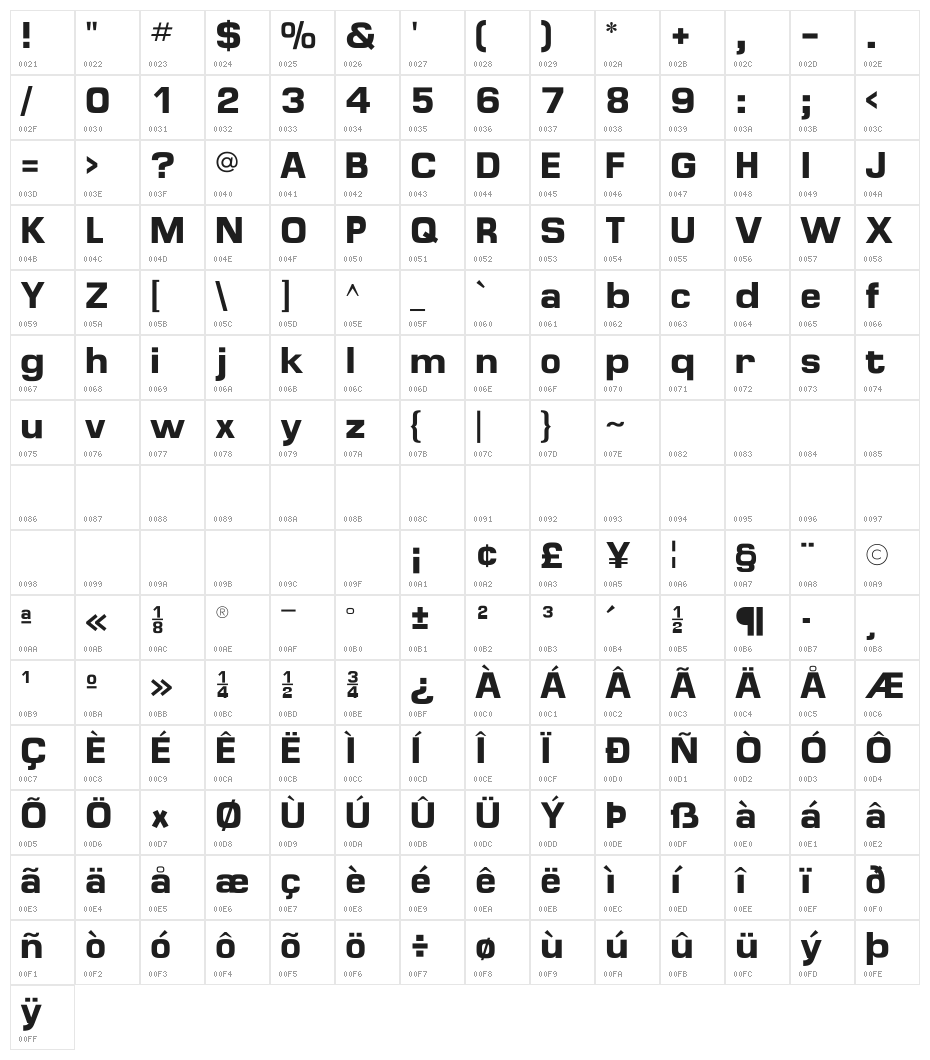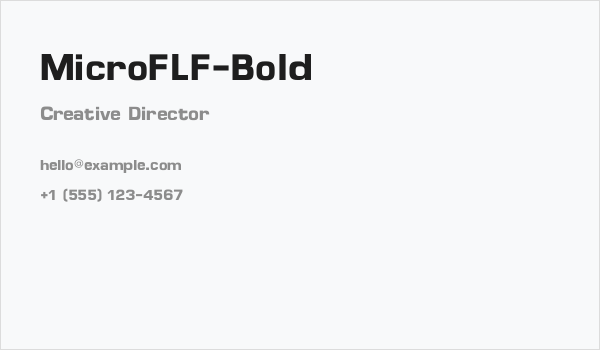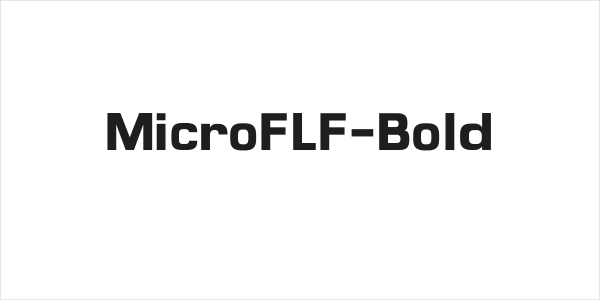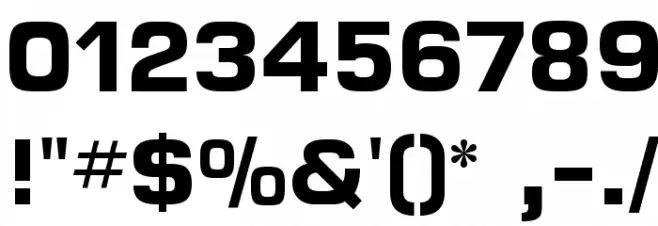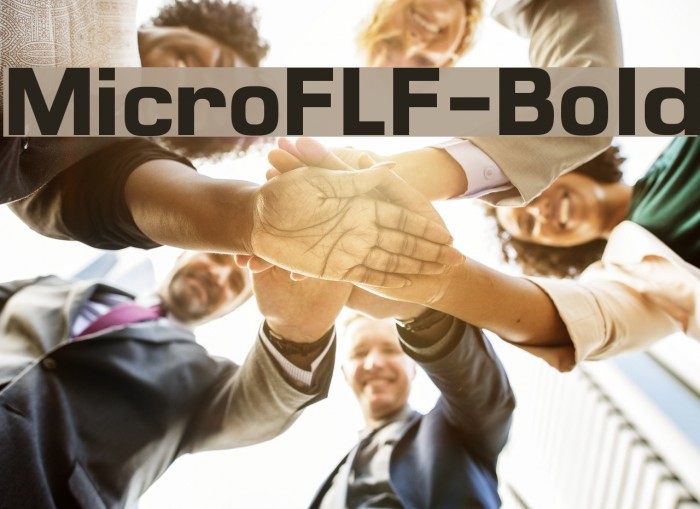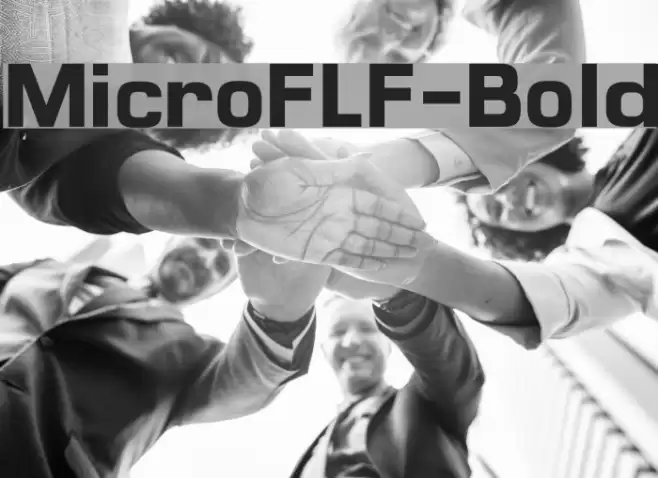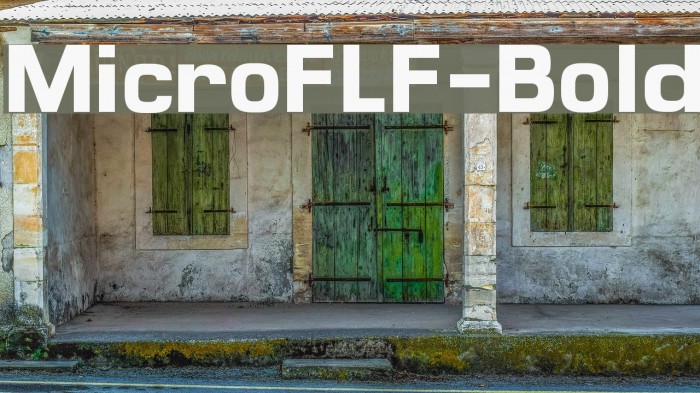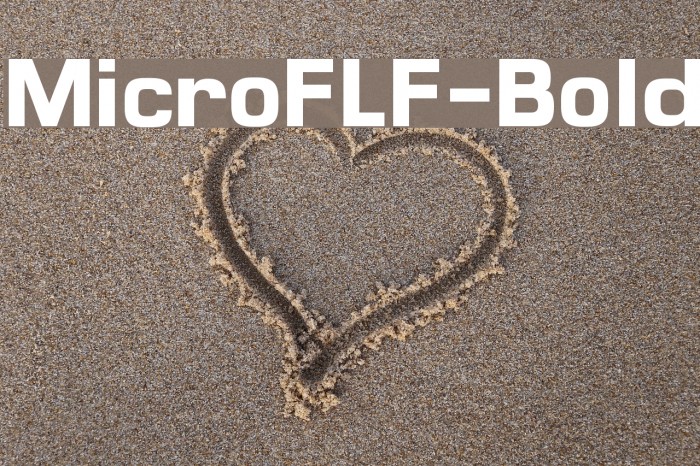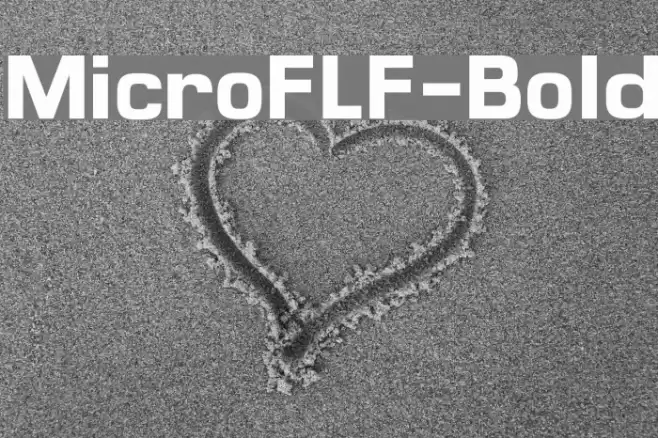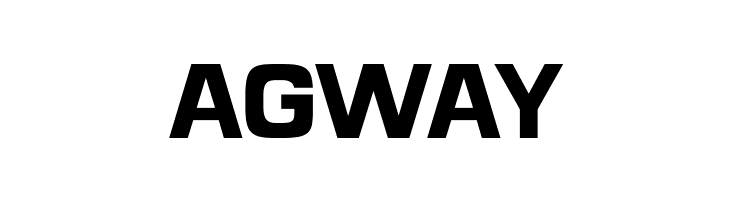
MicroFLF-Bold Font
MicroFLF-Bold Description
This font exhibits a bold and robust design, characterized by its thick, uniform strokes and strong geometric shapes. The uppercase letters are particularly striking, with a consistent height and width that convey a sense of stability and strength. The lowercase letters maintain a similar boldness, ensuring readability while adding a touch of modernity. The numerals are clear and straightforward, designed to stand out with their substantial weight. Special characters are crafted with the same attention to detail, ensuring they integrate seamlessly with the rest of the typeface. Overall, this font's boldness and clarity make it ideal for impactful designs.
| Proposed Projects | Ideal for headlines, posters, branding, and any project requiring a strong visual impact. |